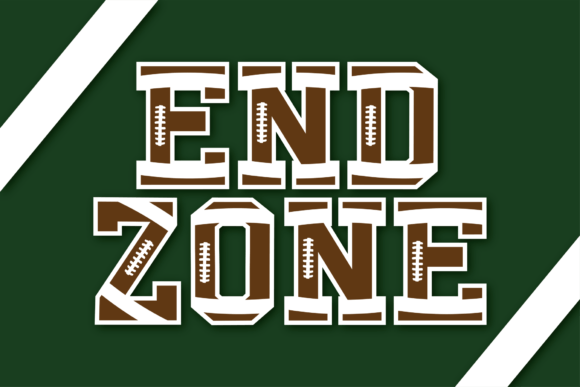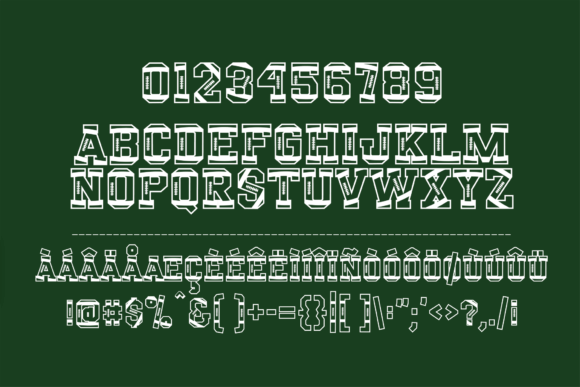
End Zone Font: Bold Display Font for Sports Logo Design!
About the End Zone Font
Presenting End Zone Font, a unique and stylish typeface that will make your work stand out. End Zone Font is a football-themed typeface perfect for decorative and graphic design projects. With bold lettering and a distinct football graphic, this font is an excellent choice for titles, logos, and any visually striking design work.
End Zone is best suited for headlines, logos, and short, impactful text in sports-related branding, posters, and merchandise. Its bold, energetic style commands attention but is less effective for body copy or UI elements requiring high readability over extended lengths. Avoid using it for lengthy paragraphs or small text sizes.
The font’s core personality is bold and playful, conveying a sense of dynamism and excitement. It would be a strong choice for brands aiming for a spirited, youthful image.
Pairing End Zone with a clean sans-serif like Open Sans for body text provides excellent contrast and readability. For a more refined look, consider pairing it with a classic serif like Garamond for a balanced contrast between modern and traditional styles.
End Zone Font Usage Examples
End Zone Font Example